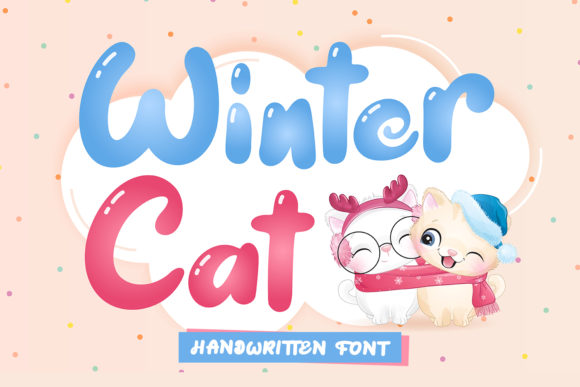
Prepare yourself to be enchanted by the magical world of Winter Cat Font, a delightful display font that will transport you to a realm of creativity and joy. Its charming and bouncy letters, reminiscent of playful kittens, dance across your screen, inviting you to embark on a whimsical design journey.
Immerse yourself in the bubbly and rounded curves of Winter Cat Font, a true masterpiece that exudes warmth and cheer. Let your imagination soar as you discover its incredibly versatile style, perfect for crafting designs that burst with personality. Whether you're creating wedding invitations, cheerful posters, or eye-catching social media graphics, Winter Cat Font is your trusty companion, adding a touch of magic to every project.
With Winter Cat Font, you'll discover a treasure trove of creative possibilities. Its playful nature lends itself effortlessly to greeting cards, where heartfelt messages are adorned with an extra dose of charm. Unleash your inner artist and create stunning logos that radiate warmth and friendliness, leaving a lasting impression on your audience.
Fall head over heels in love with Winter Cat Font, a font that ignites joy and sparks imagination. Its captivating style transforms ordinary designs into extraordinary works of art. You'll find yourself reaching for Winter Cat Font time and again, drawn to its undeniable charm and endless versatility.
Embrace the captivating beauty of Winter Cat Font and unlock a world of creative possibilities. Its delightful personality and boundless potential will leave you mesmerized, eager to explore the wonders that await you. Let Winter Cat Font be your guiding light as you embark on a journey of artistic expression, creating designs that captivate and inspire.